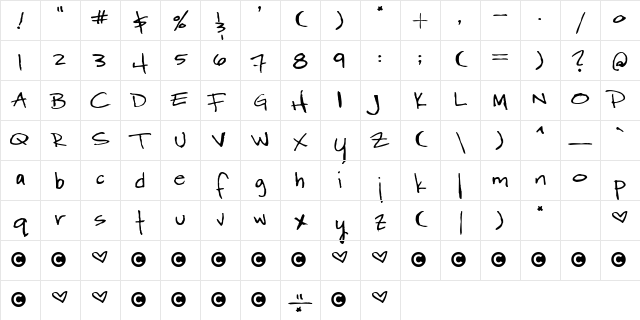
Complete WordyDivaBeta Regular glyph index. Displaying only characters natively supported by WordyDivaBeta Regular font.
WordyDivaBeta is a composed and adaptable typeface that performs quietly and consistently across a wide range of design contexts.
Pro Tip: Use WordyDivaBeta in both headline and body roles to test its range before committing to a single application.